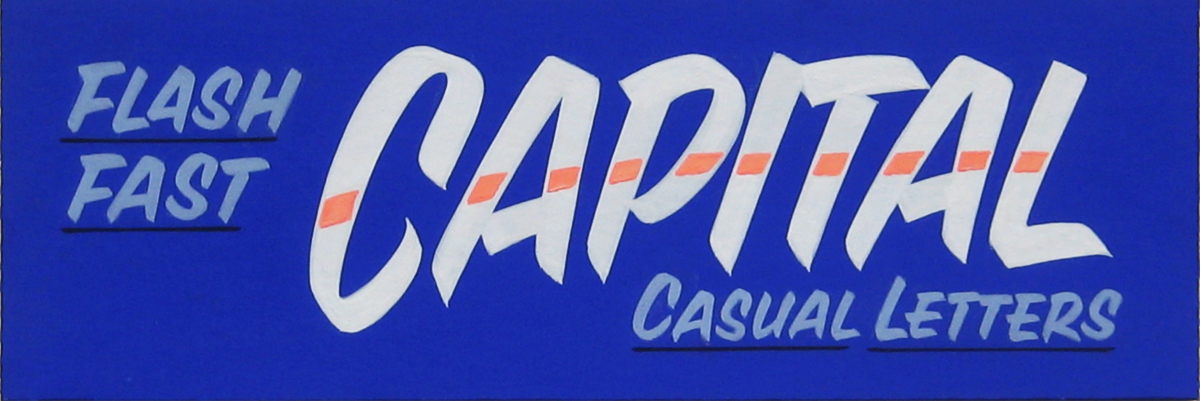
Single stroke casual brush lettering, as used in sign painting now for more than 60 years, has again become popular. John Downer grew up in the Pacific Northwest in the 1950s and '60s, at a time when "speed stroke" styles were reaching the height of their development up and down the West Coast. The general form originated in California's Central Valley, and quickly caught on in Oregon and Washington. Before long, it was used effectively in truck lettering, window lettering, store ads, and all kinds of ephemeral, "low-brow" signage. Today, it is still a staple in the sign painting trade, but few practitioners know or adhere to the original West Coast variety that John learned in his youth, and continues to teach.
No brush lettering experience is required. Proper form & efficient execution will be covered, as well as brush manipulation techniques. Handouts will provide models for the basics: majuscules, figures, and punctuation.
John Downer
Mr. Downer is a sign painter, a typeface designer, and an educator. He has written about type and type history for various publications and is widely known as a perceptive type critic. His typefaces have been published by Bitstream, Font Bureau, Emigre, House Industries, and Design Lab. Among his most popular type designs are Iowan Old Style (on Apple Books and iOS 7+), Roxy, Ironmonger, and the ubiquitous food and beverage branding favorite, Brothers.
A native of the Pacific Northwest, a region of the US with a rich history of sign painting and hand-lettering, Mr. Downer was first introduced to commercial pen & brush lettering in the 1960s in junior high school. He began an apprenticeship in a sign painting shop at age 18. He holds BA, MA, and MFA degrees in art.
Mr. Downer has been a journeyman sign painter since 1973, a freelance typeface designer since 1983, and a crusader for designers’ rights his entire adult life. He began teaching lettering at the university level in 1972, making him one of the most experienced American educators in the fields of lettering and typeface design. He’s been teaching in the Type@Cooper program at The Cooper Union since its founding in 2010. He established the Sign Painting Support Group on Facebook as a platform to educate and guide serious enthusiasts and professionals in the principles of letter construction and the tricks of the trade. Follow him on Instagram.